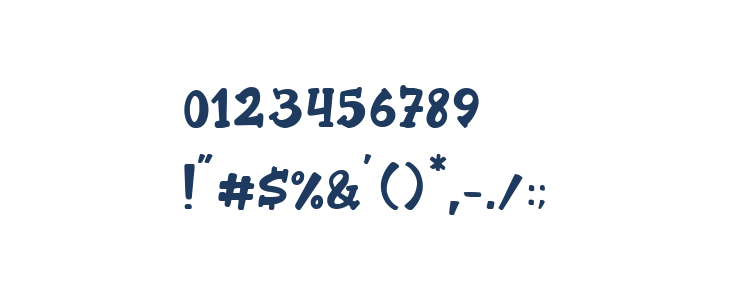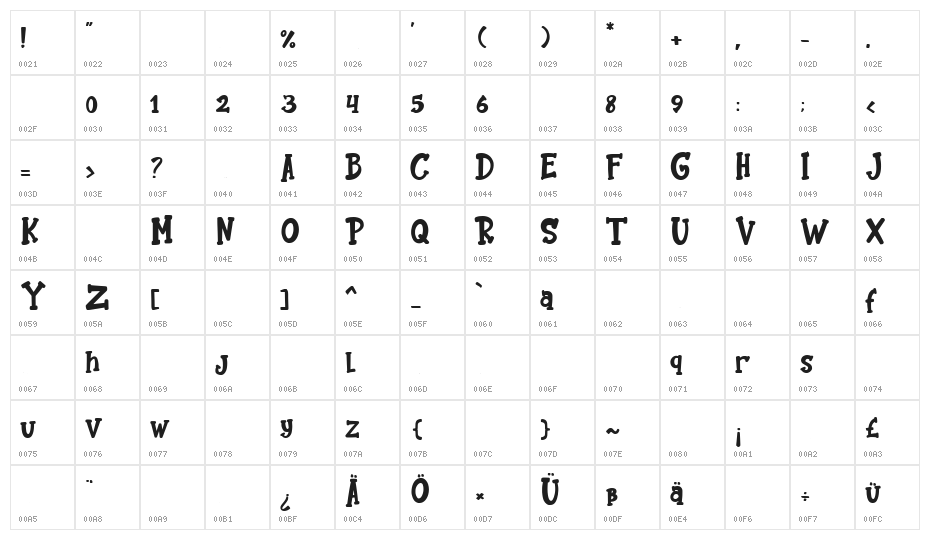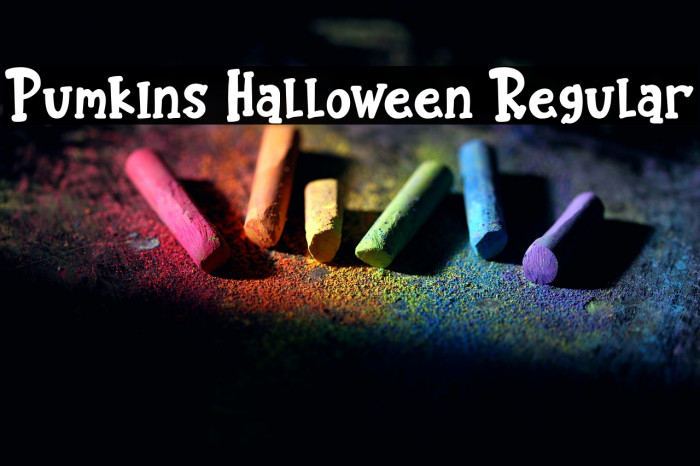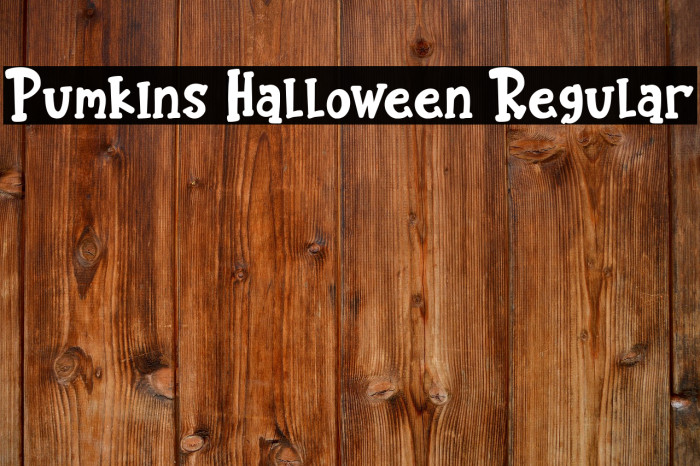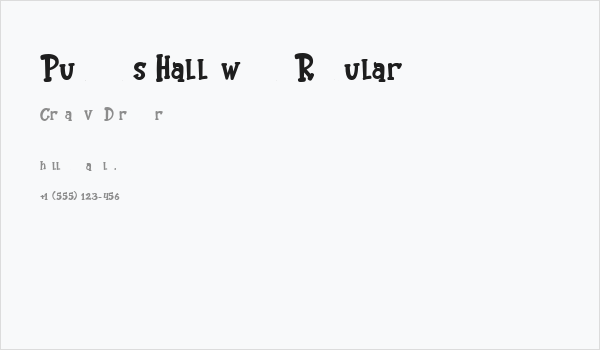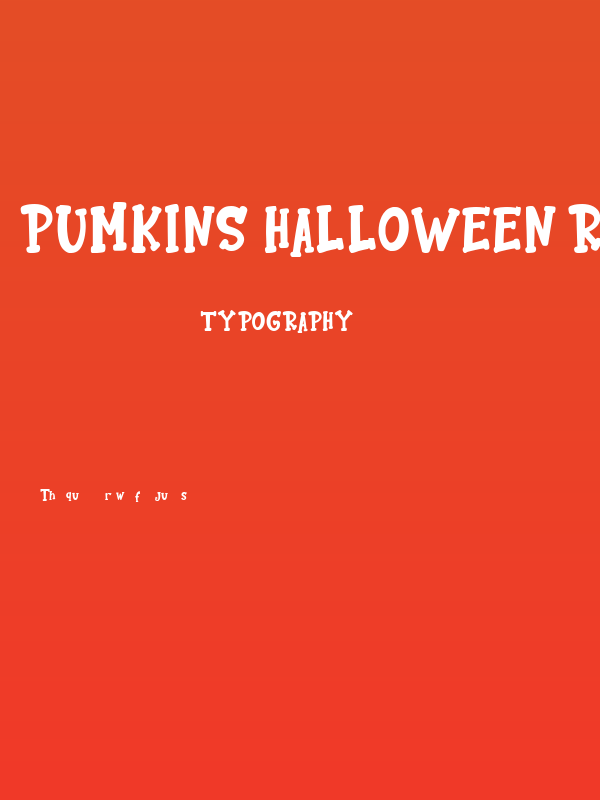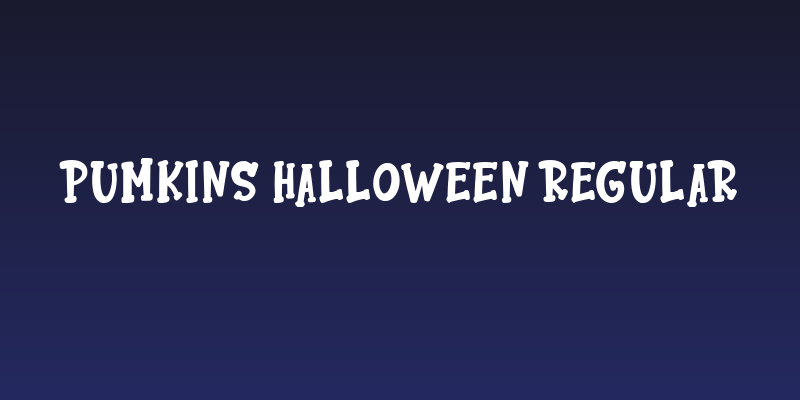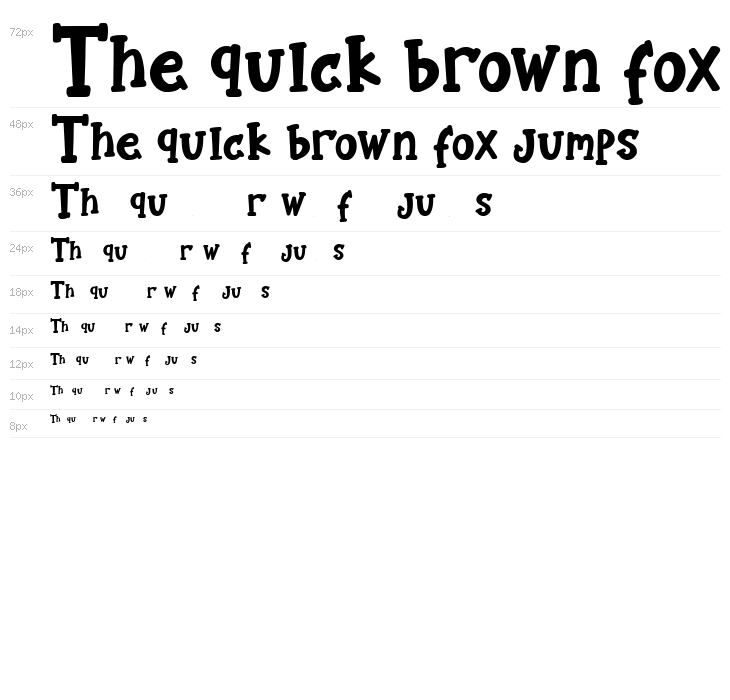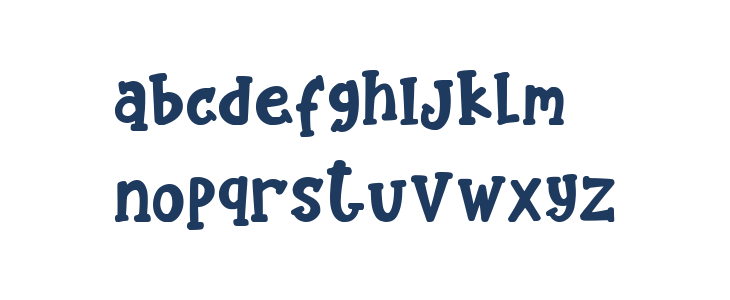
Pumkins Halloween Regular Font
Pumkins Halloween Regular Description
This playful and whimsical font features a bold and quirky design, perfect for capturing attention. The letters have a hand-drawn, slightly irregular appearance, adding a touch of fun and creativity. The strokes are thick and rounded, giving the font a friendly and approachable feel. The uppercase and lowercase letters maintain a consistent style, with unique character shapes that stand out. The numbers and special characters are equally bold and expressive, making them suitable for various creative projects. This font is ideal for themes related to fun, celebration, or anything requiring a lively and engaging look.
| Proposed Projects | Great for Halloween-themed designs, children's books, party invitations, and playful branding. |